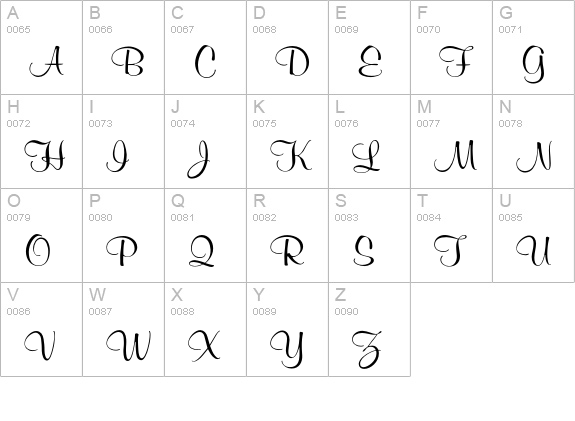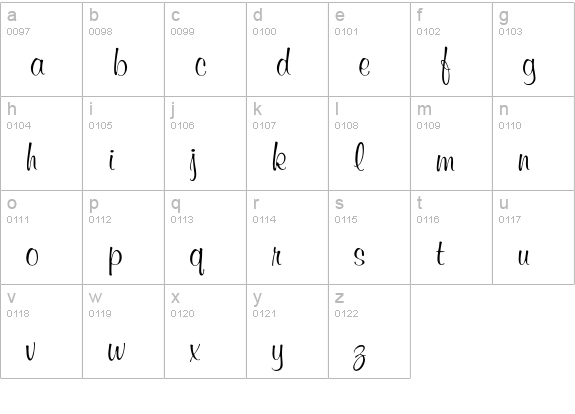
MurrayHillBold Font Details
MurrayHillBold is a timeless and elegant font that exudes sophistication and class. With its bold and eye-catching appearance, this font is perfect for making a statement in your designs. Its clean lines and refined curves give off a sense of professionalism and authority, making it ideal for use in branding, advertising, and editorial projects. What sets MurrayHillBold apart is not just its stunning aesthetics, but also its versatility. Whether you're creating a sleek modern website, designing a luxurious invitation, or crafting a high-end logo, this font will elevate your project to the next level. Best of all, MurrayHillBold is available for free download at FontsMarket.com. So you can add this stunning font to your collection without breaking the bank. Don't miss out on the opportunity to enhance your designs with this exceptional typeface. Download MurrayHillBold today and watch your creations come to life with style and sophistication.